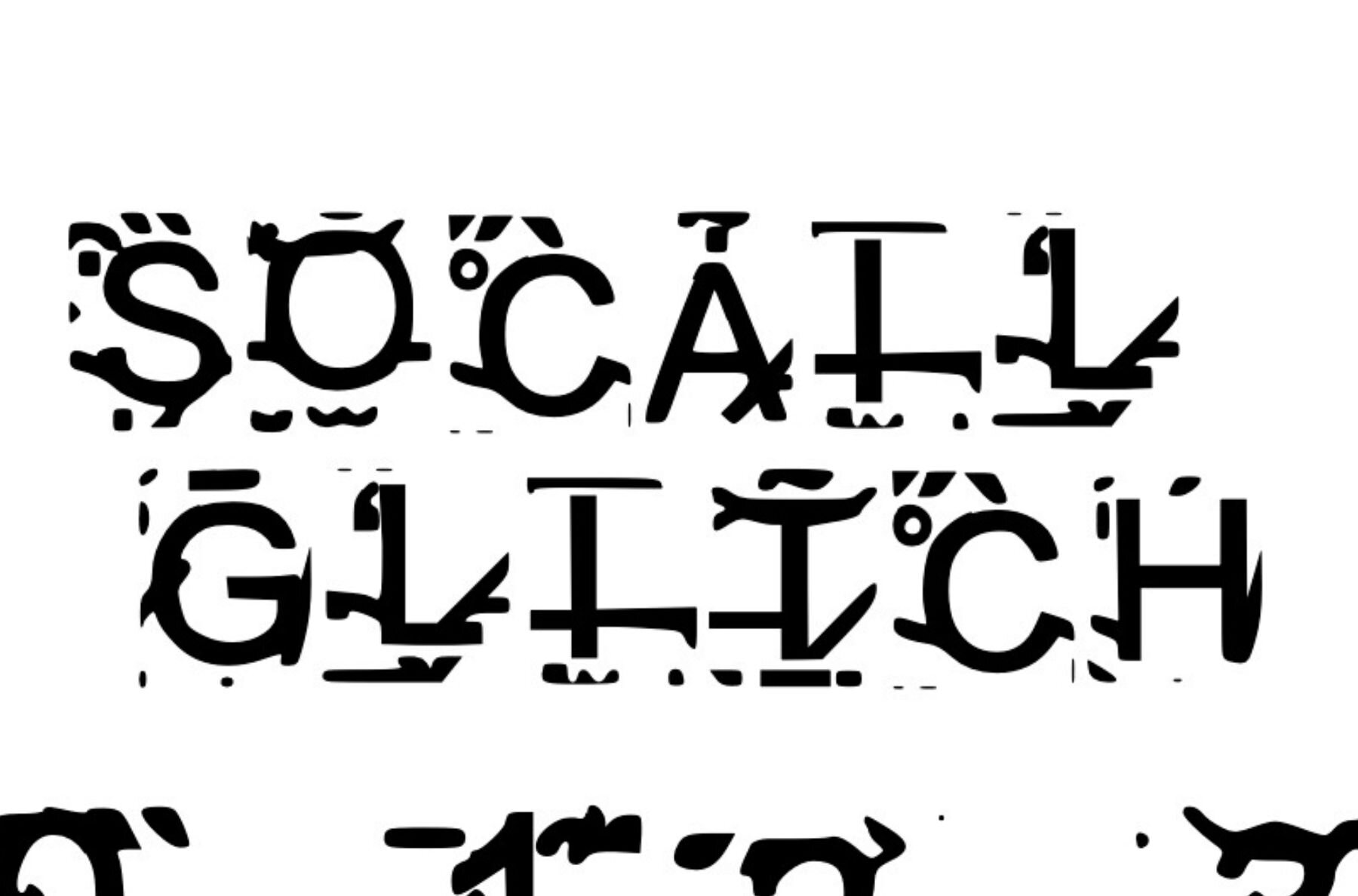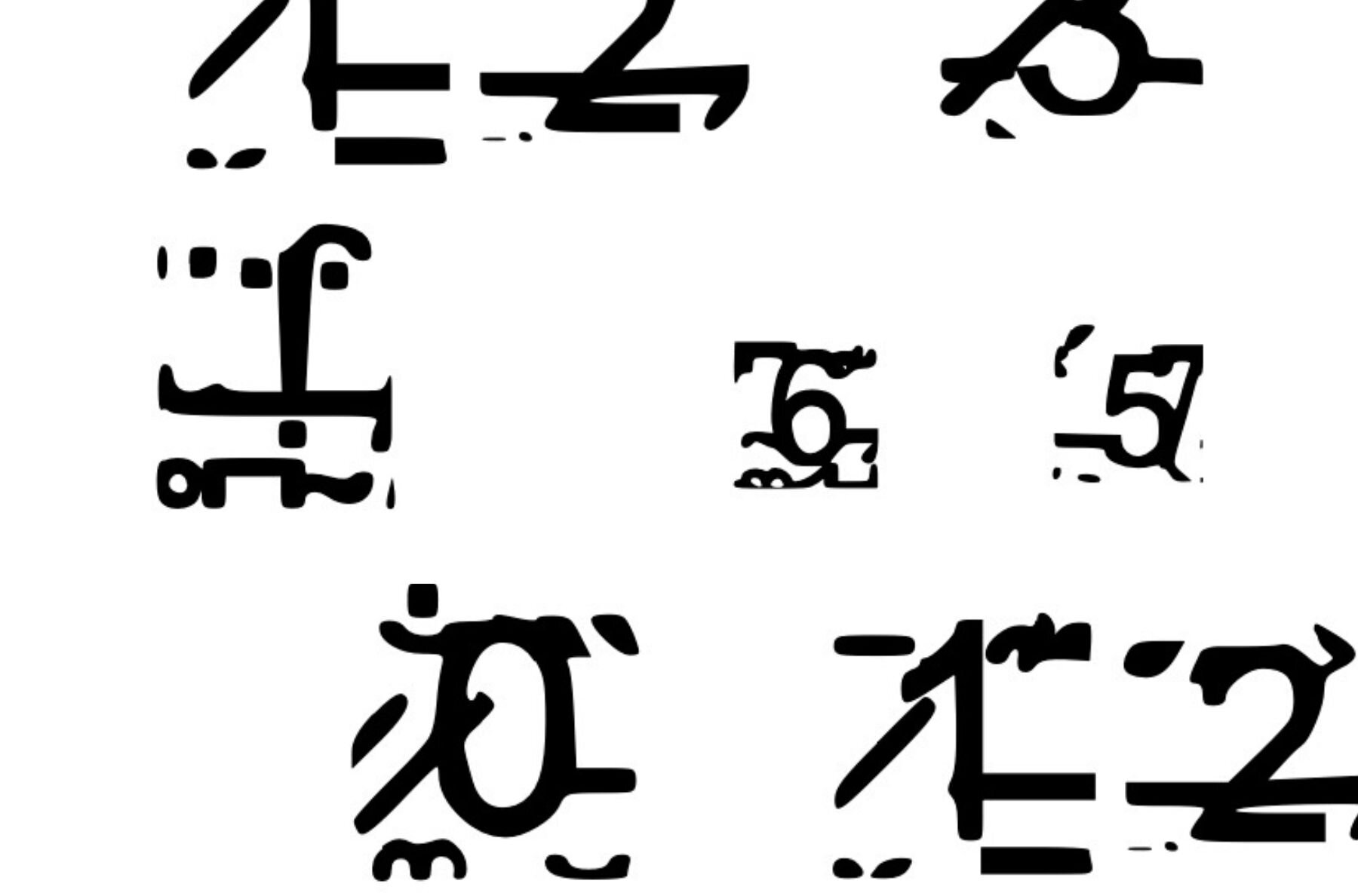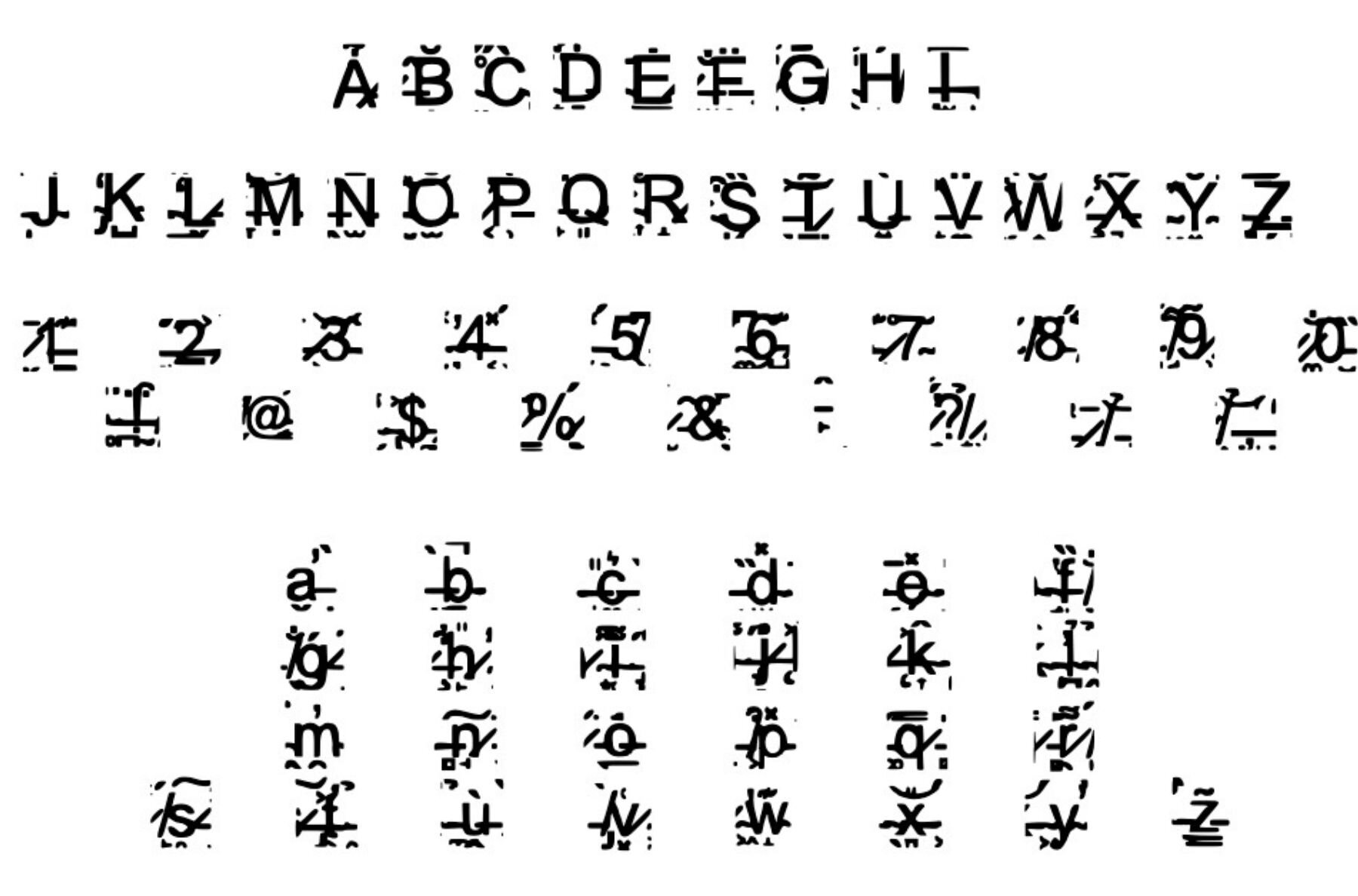
Social Glitch Font
Social Glitch
Social Glitch takes inspiration from the eerie 'zalgo' font commonly seen in dark memes. This unique typeface adds a mysterious and unsettling aesthetic to your content, whether it’s a blog post, YouTube comment, or any social media page. Perfect for those looking to convey a sense of chaos and intrigue.Social Glitch